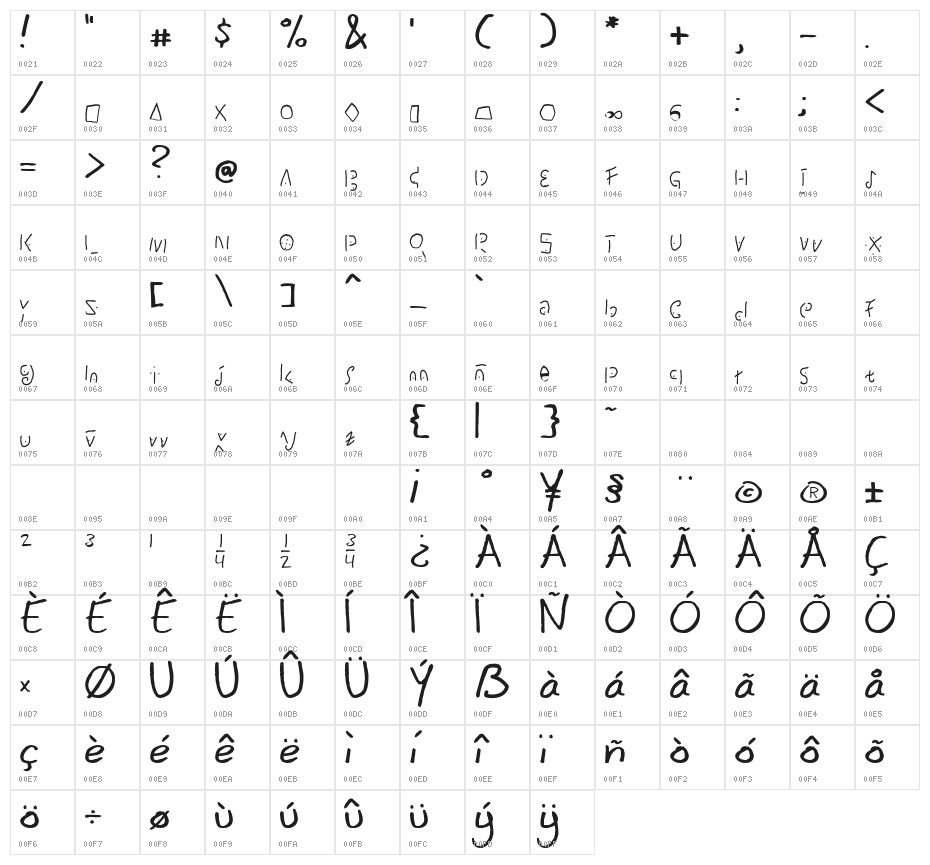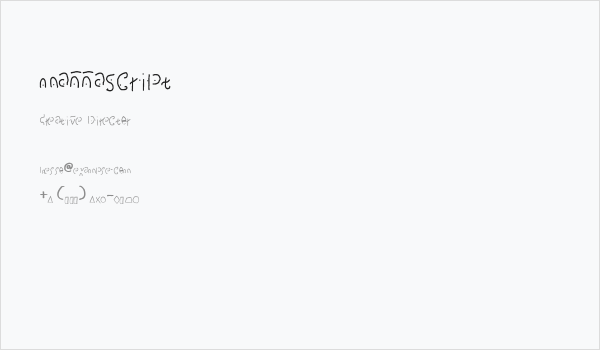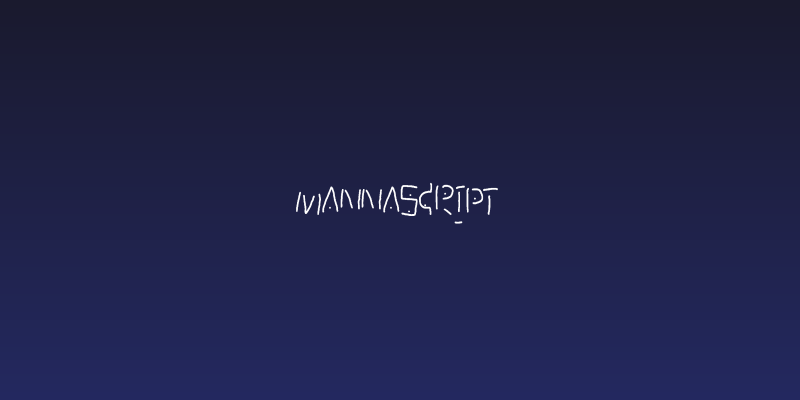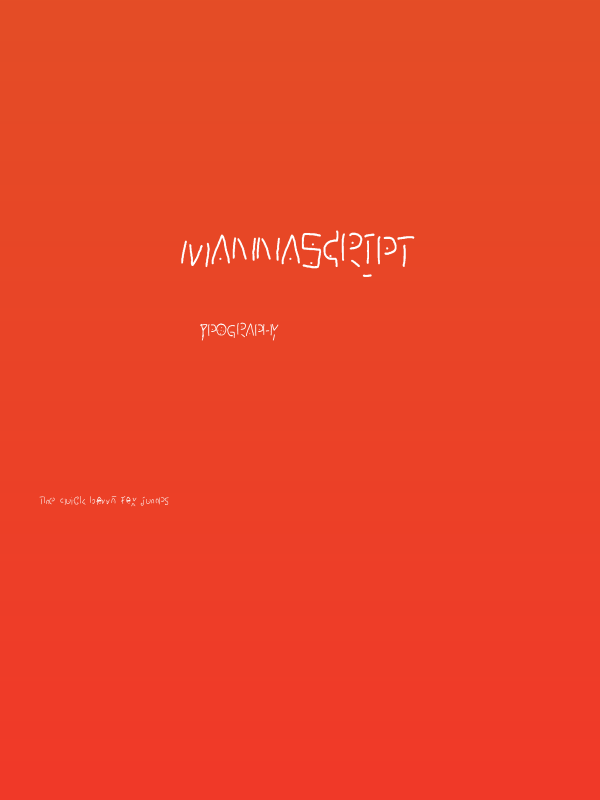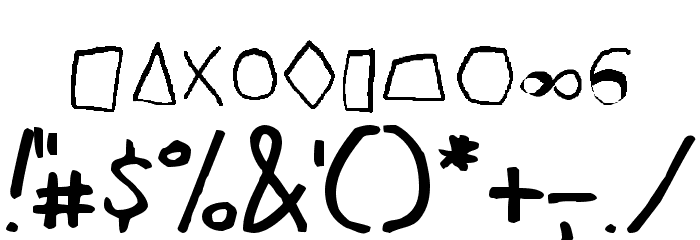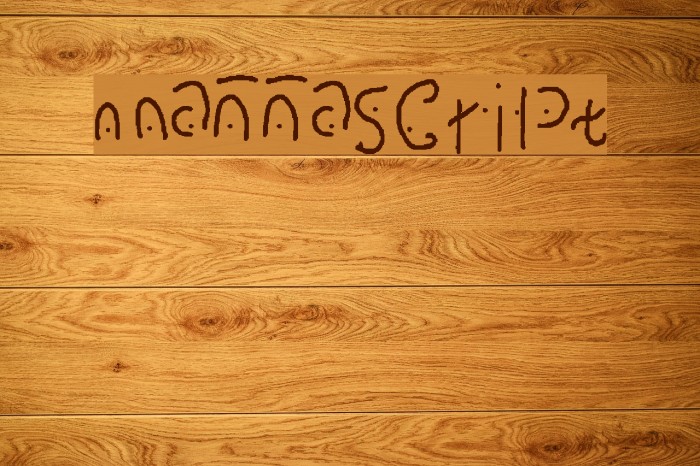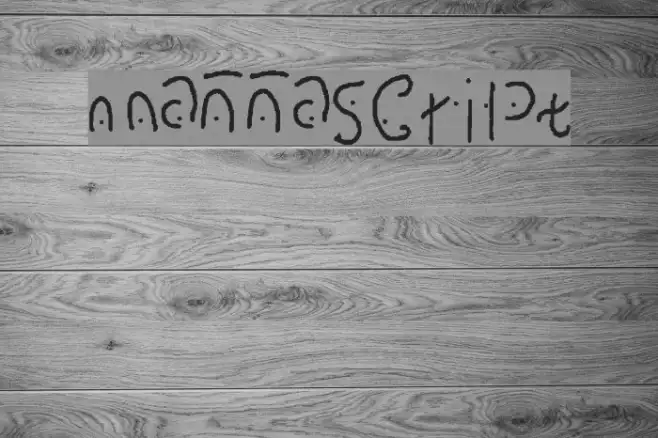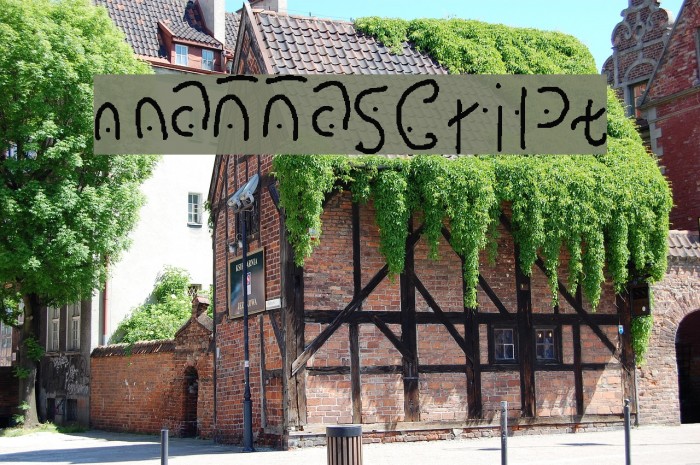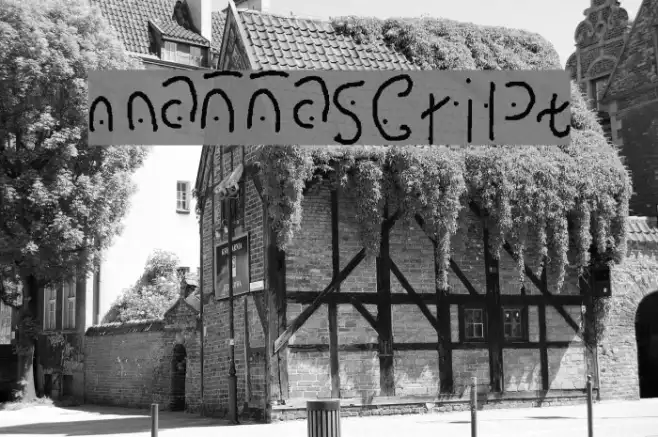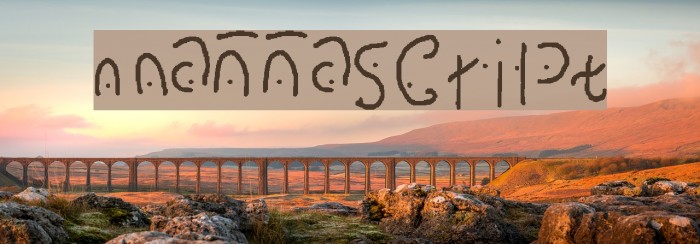
mannascript Font
mannascript Description
This font features a unique and artistic design, characterized by its abstract and geometric shapes. Each character is crafted with a playful and unconventional style, incorporating elements like circles, triangles, and lines that give it a hand-drawn appearance. The uppercase and lowercase letters maintain a consistent theme, with some characters being more abstract than others. The numbers and special characters follow the same creative approach, making the font ideal for projects that require a distinctive and eye-catching look.
| Overall Style | Artistic |
| Use Case | Logos, Posters, Artistic Branding |
| Proposed Projects | Ideal for creative projects such as posters, album covers, artistic branding, and unique invitations. |